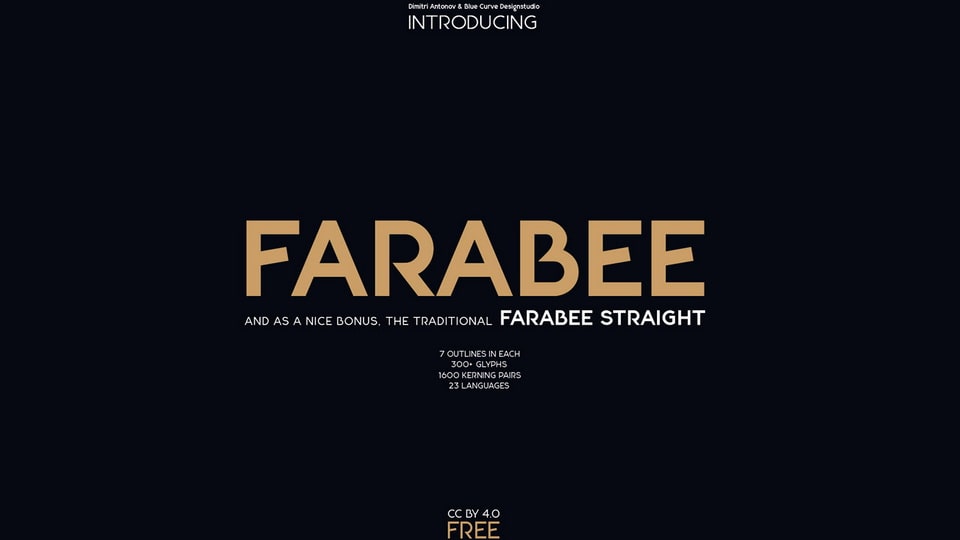
Download Farabee font, a modern and geometric sans serif typeface with a creative twist. Its clean lines and bold presence are balanced by subtle quirks, that give it a unique personality without sacrificing legibility.
Designer: Dimitri Antonov